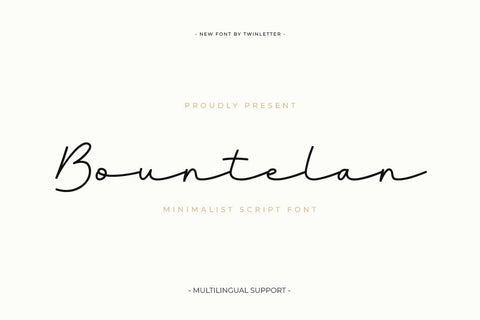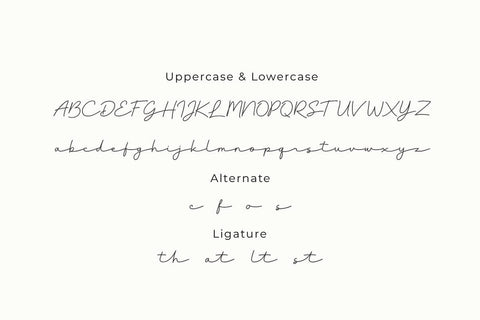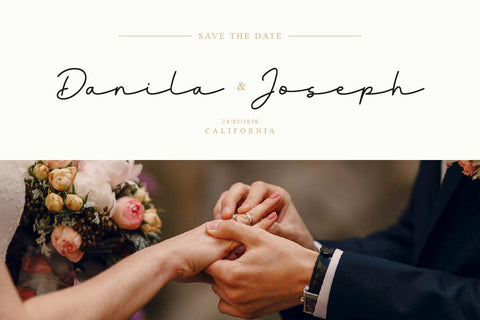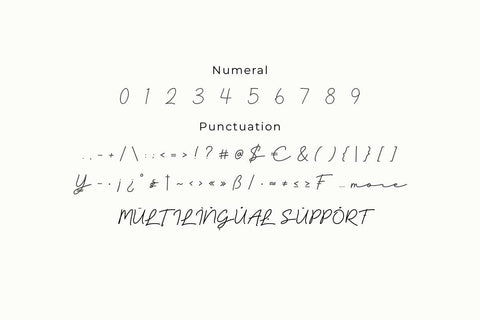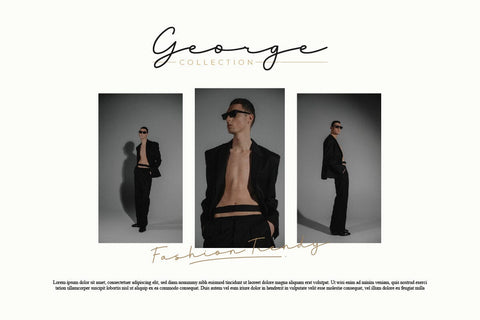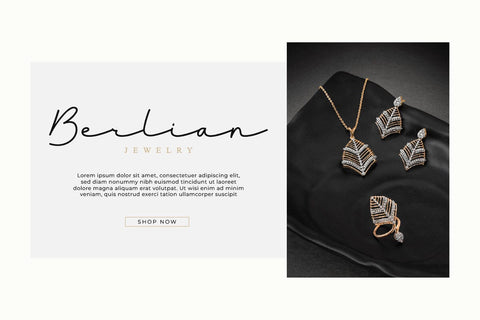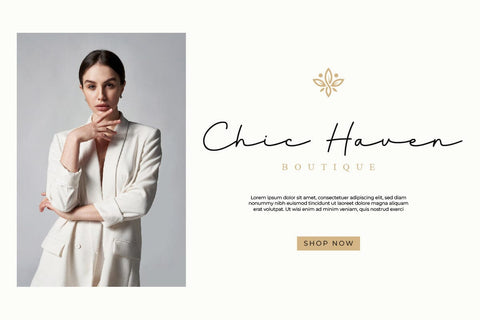
Bountelan - Script Monoline Font
Bountelan is a script monoline font that combines simplicity with elegance. Its clean, smooth lines make it perfect for minimalist designs, while its unique characters add a touch of creativity. Whether you’re designing a logo for a modern brand or creating a stylish headline, Bountelan is the perfect choice. It’s not just a font, it’s a statement of style. Bountelan is the embodiment of modern minimalism, perfect for those who appreciate simplicity but still want their designs to stand out. It’s like a whisper in a crowded room, subtle yet impossible to ignore, making it perfect for designs that require a touch of sophistication.
- Alternate, Ligature